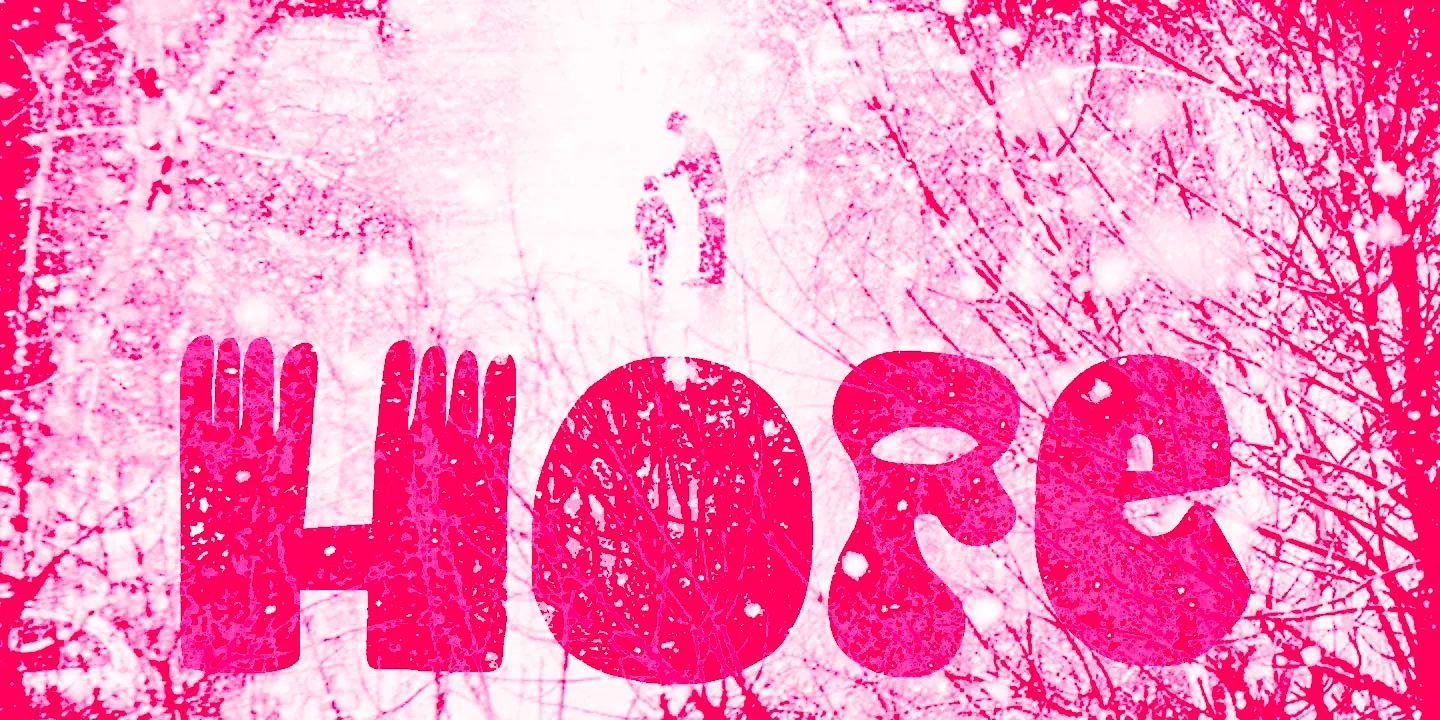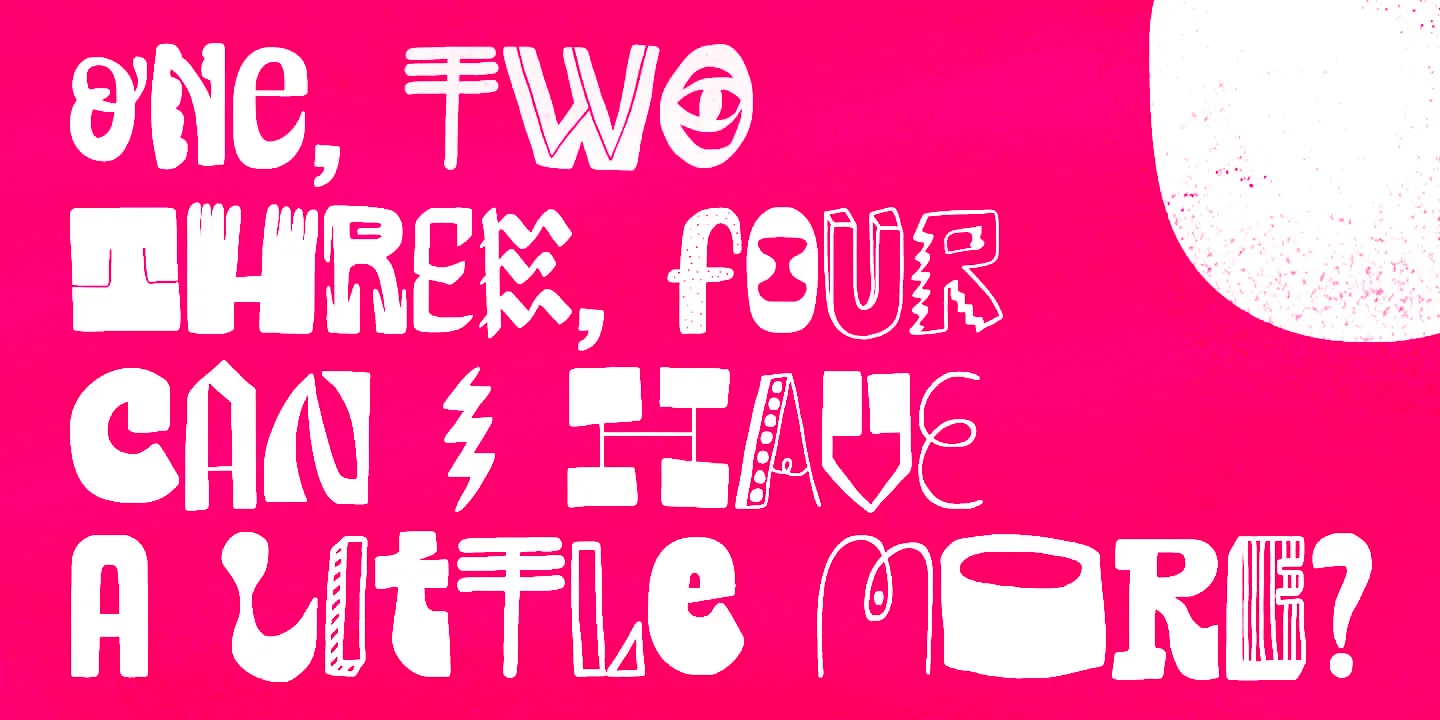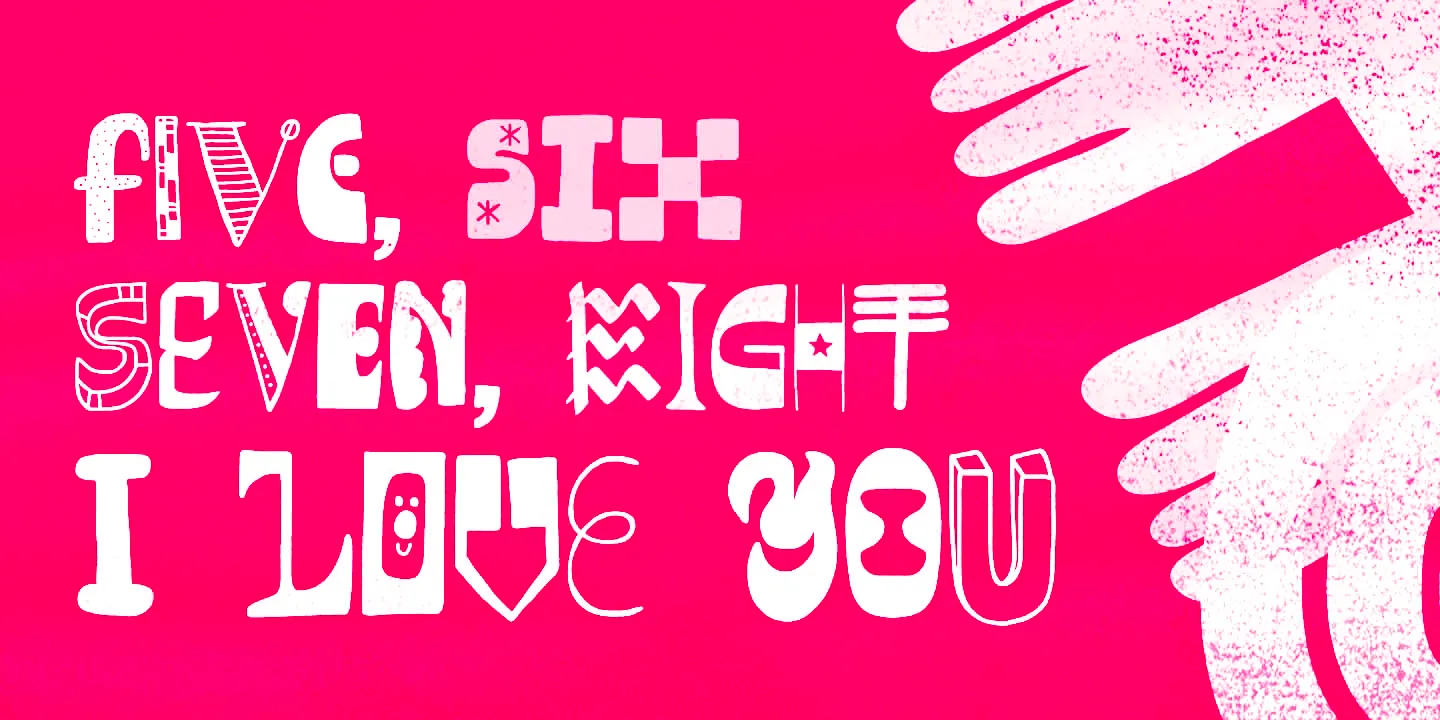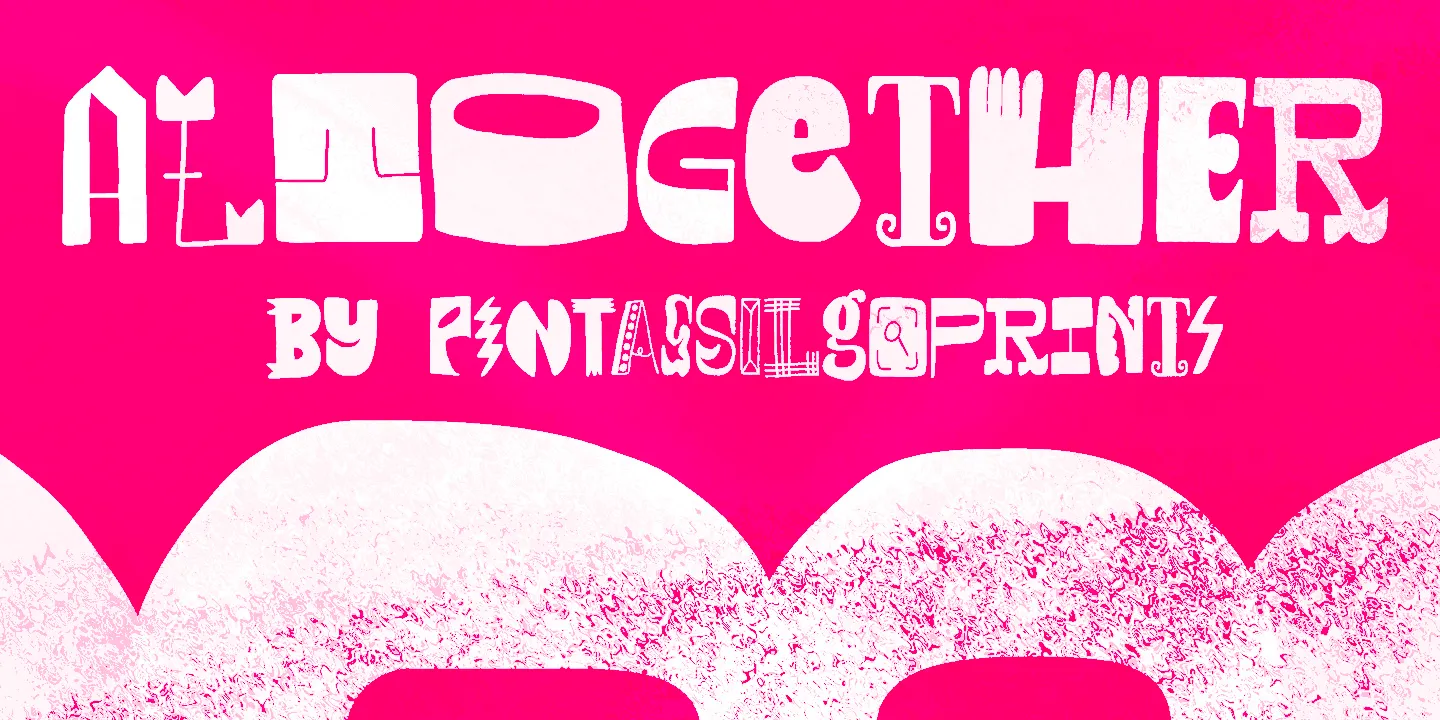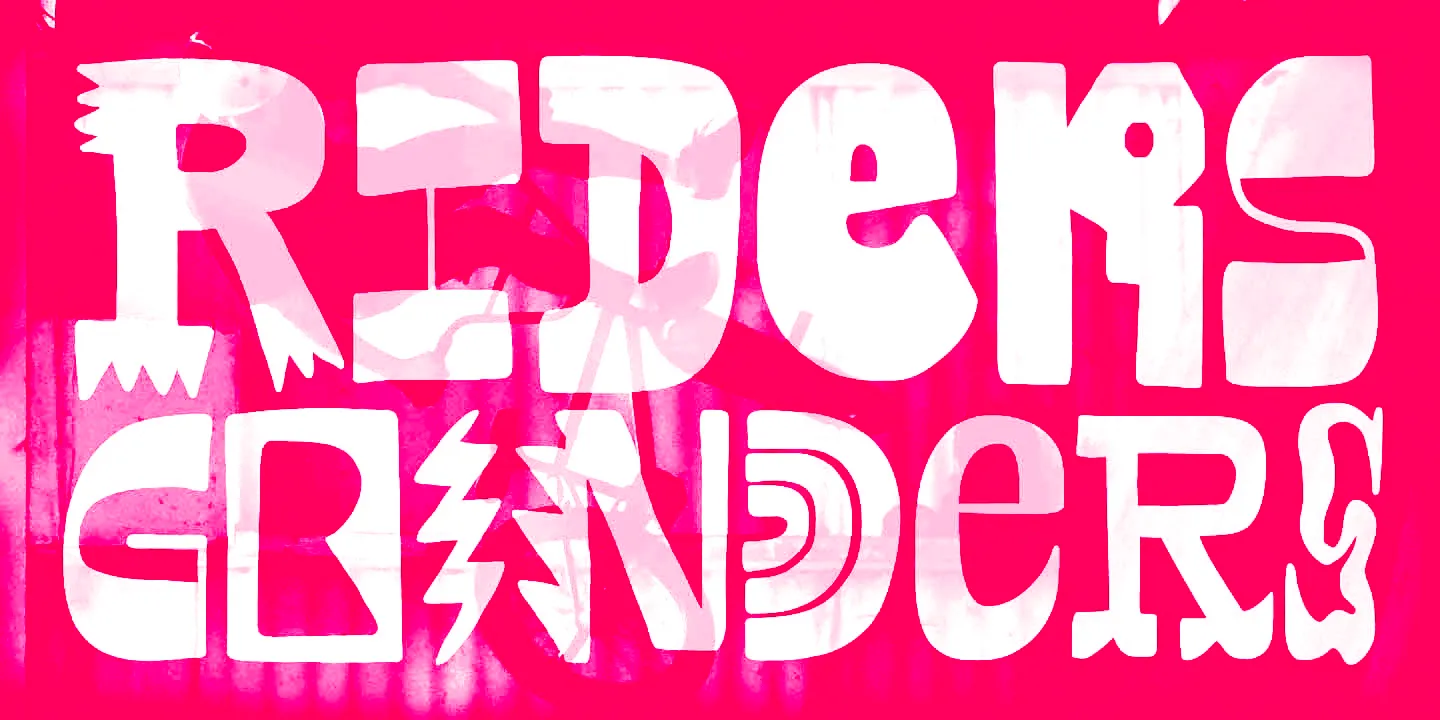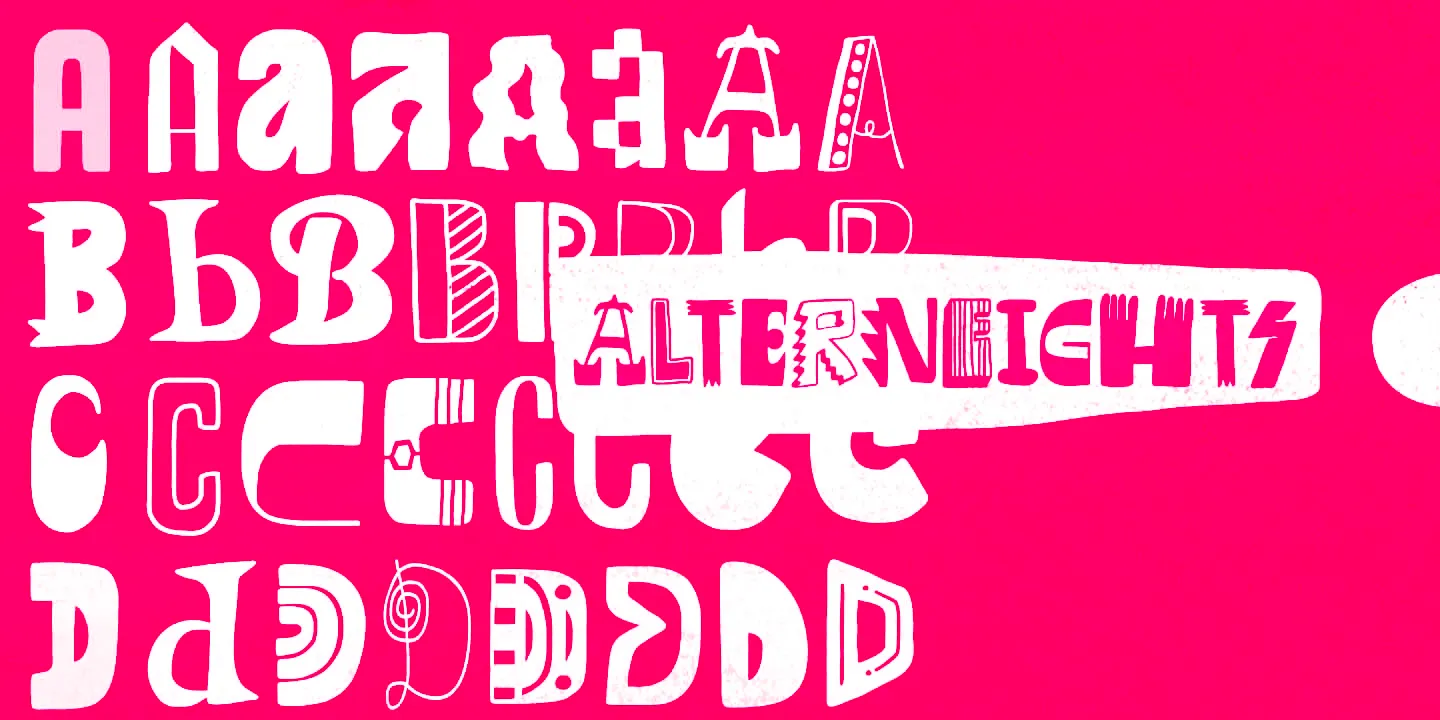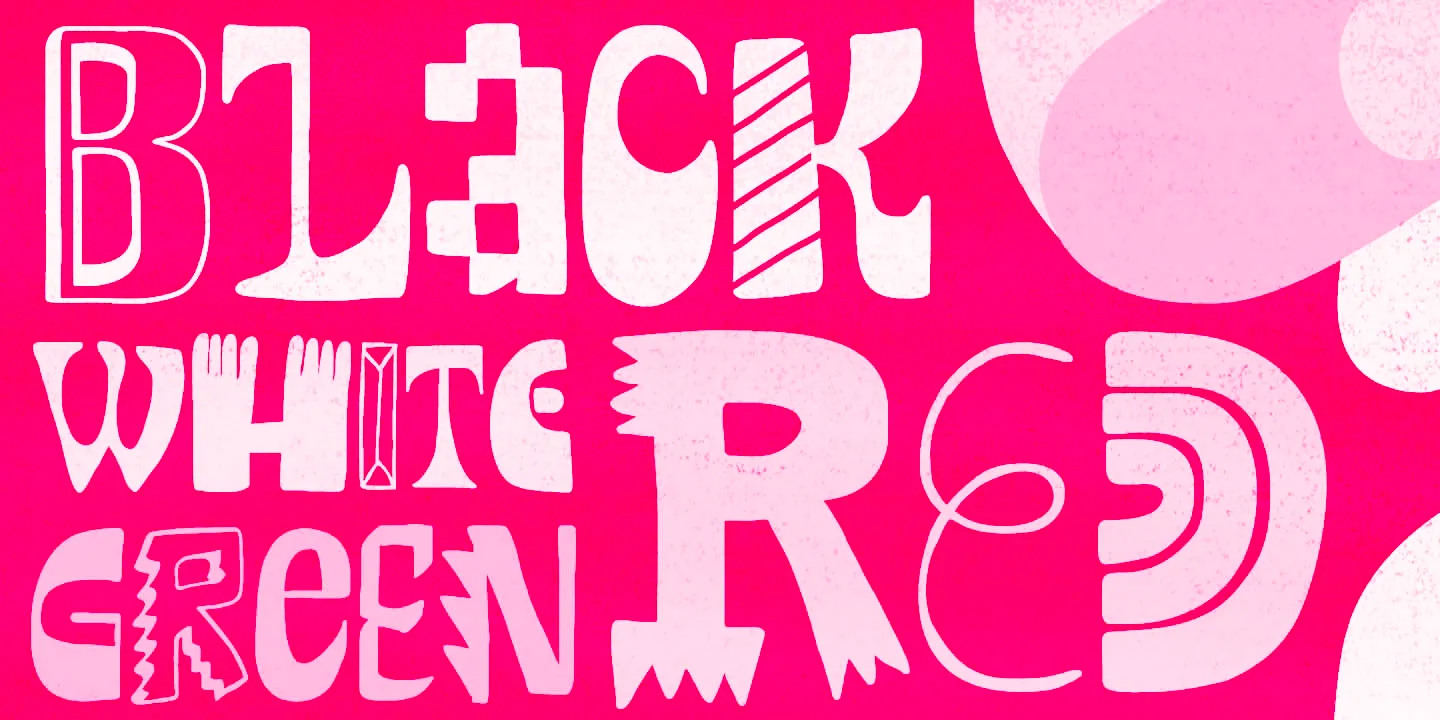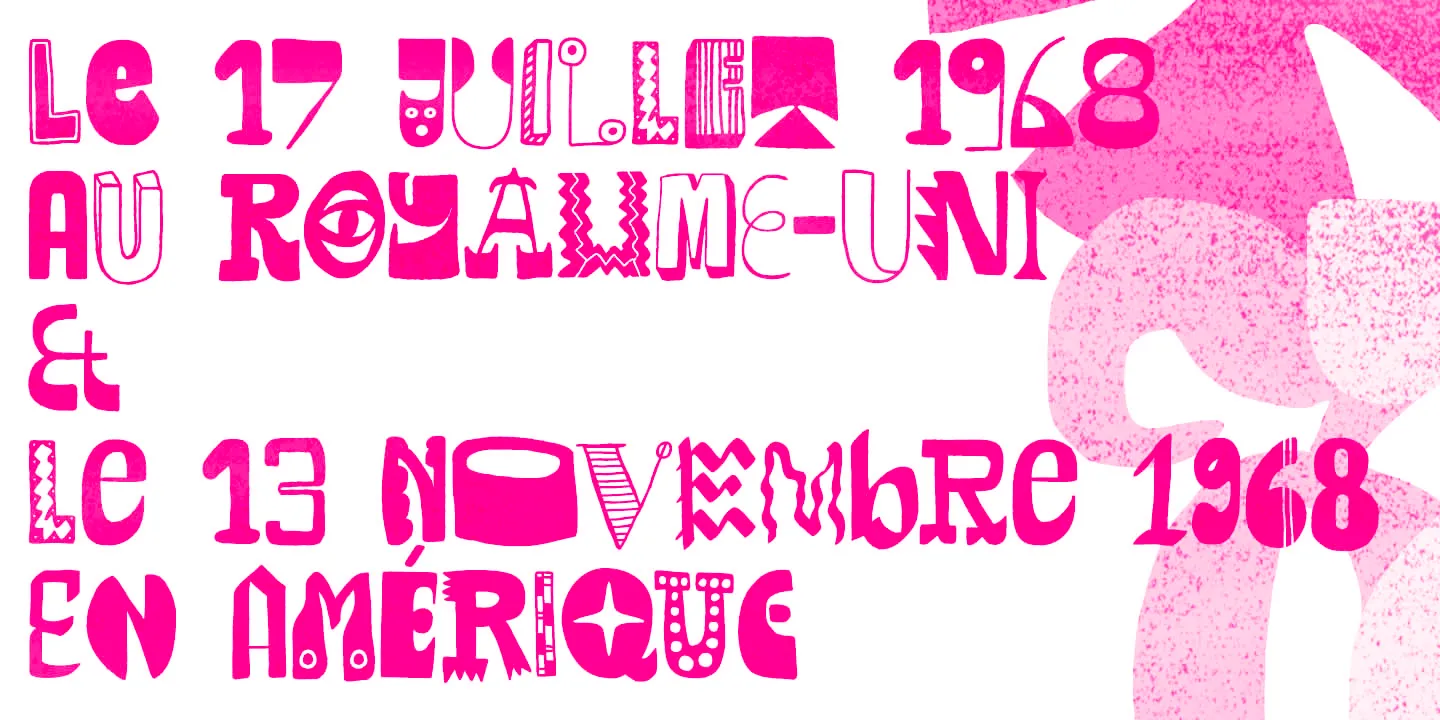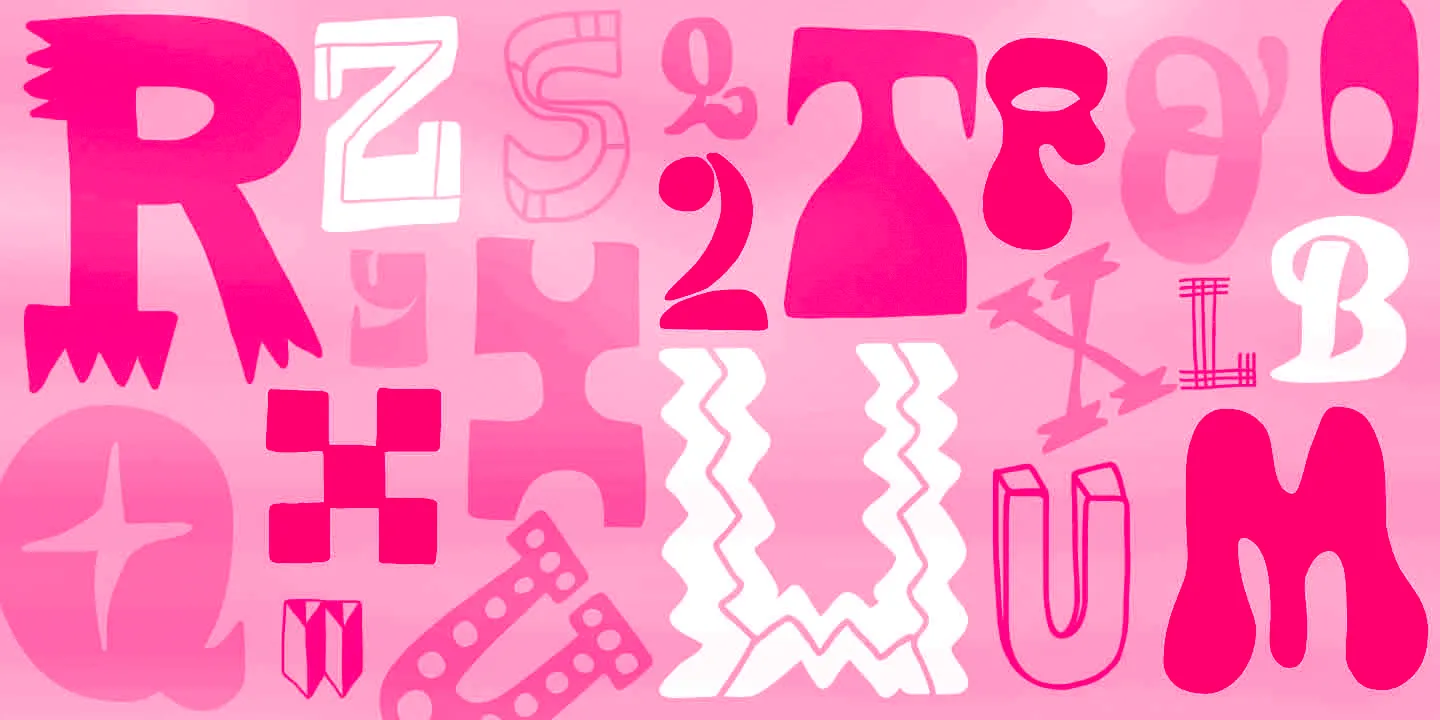
Altogether Font
Altogether
Altogether is oodles of hand-drawn doodles! A display family built with not one, two, or even three, but a kaleidoscope of eight originally creative flavors for each letter. Sometimes square, sometimes round, occasionally loopy, and even striped! Definitely a bit eccentric! Ideal for short bursts of text that need to grab your eye!